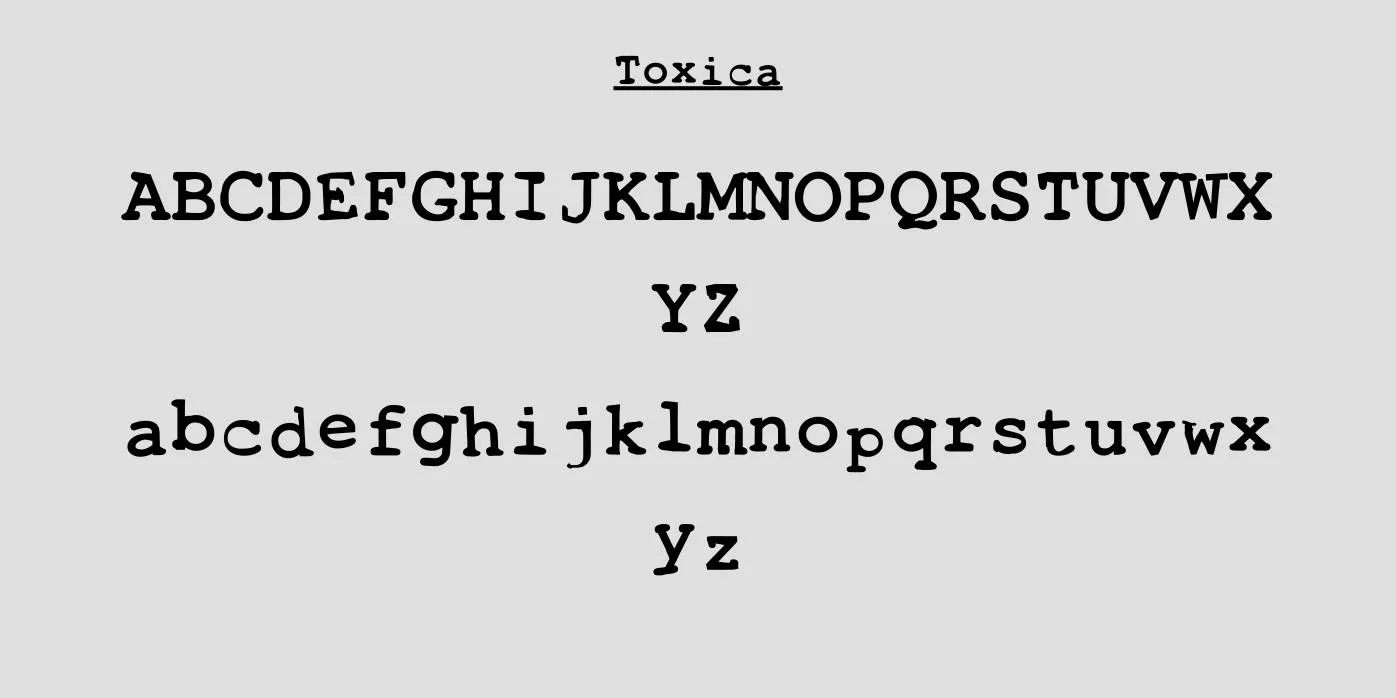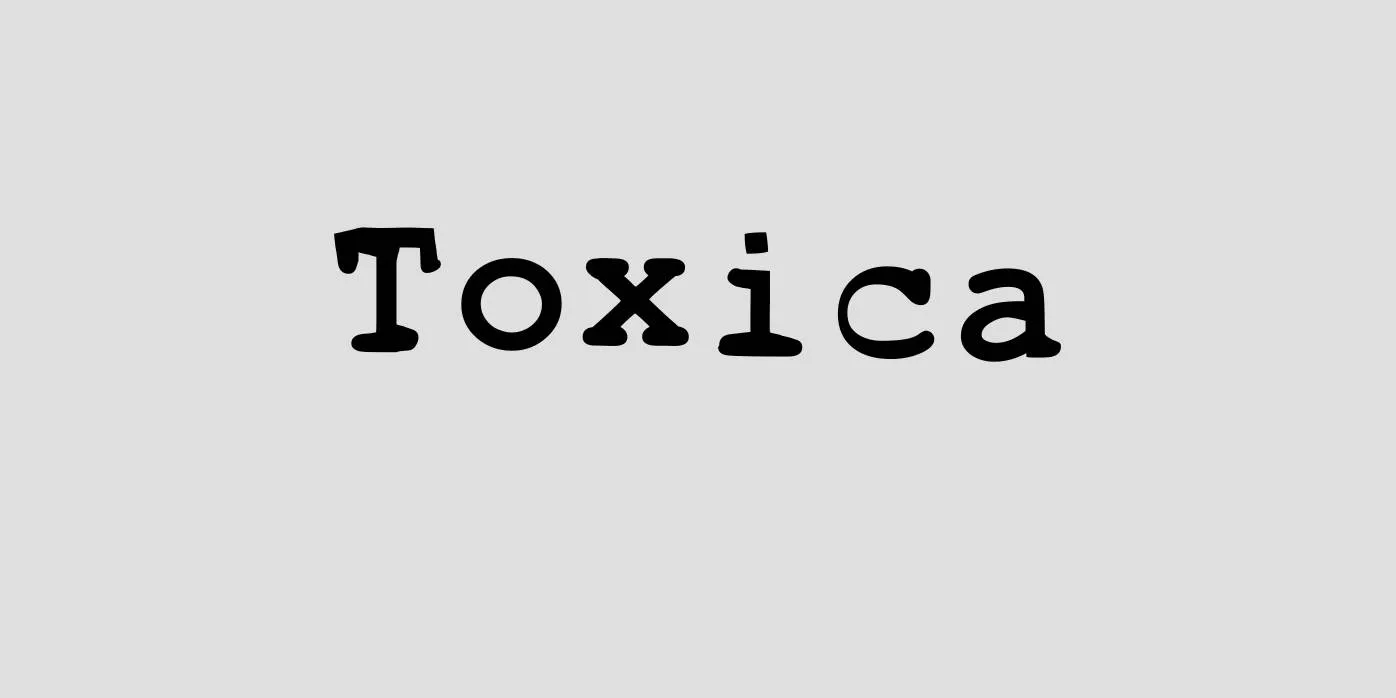
Toxica Font
Toxica Font is a fancy font that has bold characters very easy to read. The font has amazing texture characteristics. This font has a wide range of usage due to its attractive and flexible characters. There are so many textures to be paired with this font, but the talacha font is very good to be paired with this typeface.